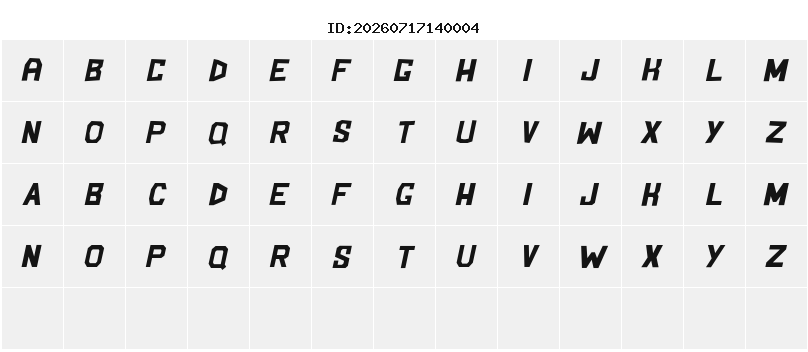
• Font Name: Blockem Sockem
• Designer: Jason L. Arthur
About Blockem Sockem.otf
Blockem Sockem.otf is a modern, elegant sans-serif font designed for ultimate readability and visual harmony. Perfect for branding, headlines, web design, and print materials.